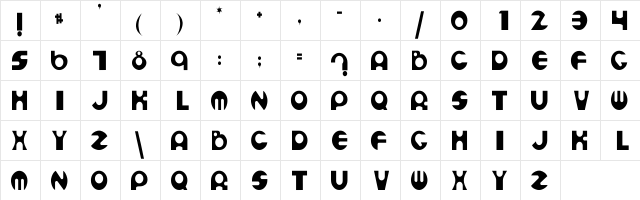
Espheres Th Regular Font Preview
Espheres Th Regular
Design Context for Espheres Th Typeface
Espheres Th is a composed and adaptable typeface that performs quietly and consistently across a wide range of design contexts.